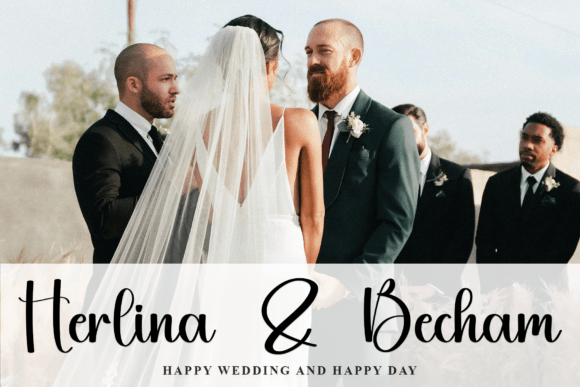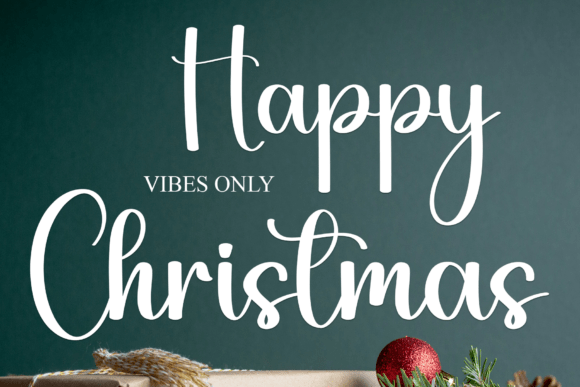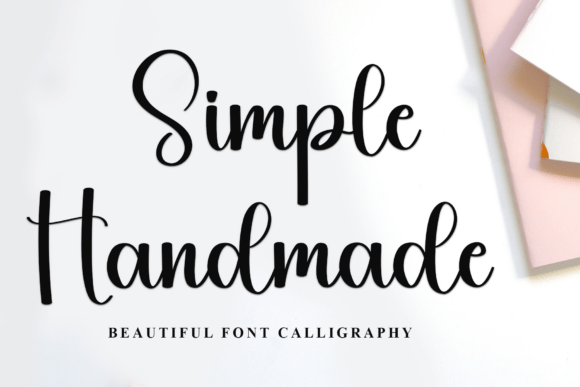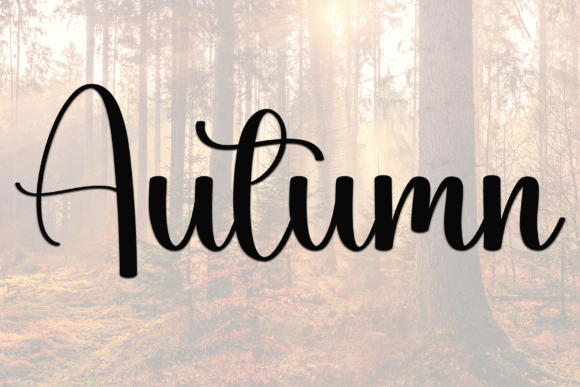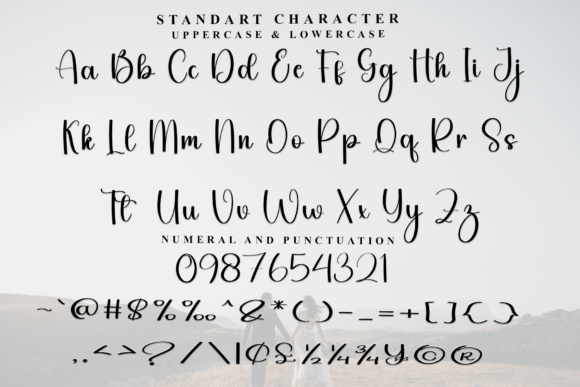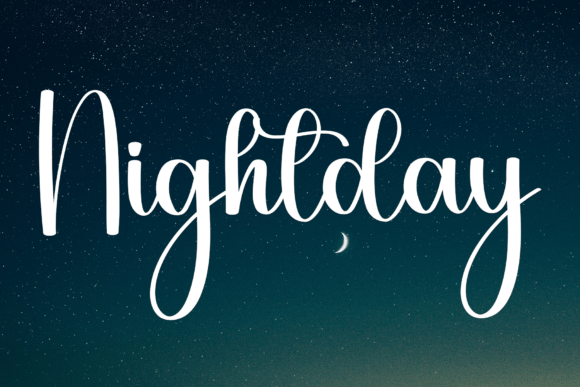
Introducing Blanket Font: The Soft, Unique Touch for Your Creative Projects
In the world of typography, a font can make or break a design. It’s the perfect blend of style, elegance, and personality that can elevate your creative projects to the next level. If you’re a designer, crafter, or artist looking for a font that stands out from the crowd, look no further than Blanket Font. This beautiful and eye-catching font is designed with a soft, unique touch that will add a special character to your work.
The Distinctive Strokes of Blanket Font
Blanket Font boasts distinctive strokes that give it a special character, making it meaningful and versatile for future use. The font’s unique design ensures that it will add a touch of personality to any project, whether it’s a design project, craft, or other creative work. The soft and rounded edges of the font give it a friendly and approachable feel, making it perfect for a wide range of applications.
A World of Characters at Your Fingertips
One of the standout features of Blanket Font is its vast array of characters. With a wide range of letters, numbers, and symbols, you’ll have everything you need to create stunning designs and crafts. Whether you’re working on a logo, brochure, or social media graphic, Blanket Font has got you covered. The font’s versatility ensures that it will be a valuable addition to your design toolkit.
Blanket Font is perfect for design projects, crafts, and other creative works. Its unique and eye-catching design makes it ideal for a wide range of applications, from branding and advertising to scrapbooking and DIY crafts. The font’s soft and rounded edges give it a friendly and approachable feel, making it perfect for projects that require a personal touch.
Ideal for a Wide Range of Products
Blanket Font is ideal for a wide range of products, from business cards and brochures to t-shirts and mugs. The font’s unique design ensures that it will add a touch of personality to any product, making it perfect for businesses and individuals looking to stand out from the crowd. Whether you’re creating a logo, packaging, or promotional materials, Blanket Font is the perfect choice.
Enhance Your Designs with Blanket Font
Blanket Font is designed to enhance your designs, making them appealing to many audiences across different artistic and creative fields. The font’s soft and unique touch ensures that it will add a special character to your work, making it perfect for designers, crafters, and artists looking to create stunning designs and crafts. With Blanket Font, you can:
- Create stunning logos and branding materials that stand out from the crowd
- Design eye-catching brochures and flyers that grab attention
- Make personalized crafts and DIY projects that showcase your personality
- Develop unique and creative social media graphics that engage your audience
In conclusion, Blanket Font is a beautiful and eye-catching font designed with a soft, unique touch. Its distinctive strokes give it a special character, making it meaningful and versatile for future use. With various characters, it’s perfect for design projects, crafts, and other creative works. Compatible with various applications, including Windows and open-source platforms, this natural font style is ideal for a wide range of products. Whether you’re a designer, crafter, or artist, Blanket Font is the perfect addition to your design toolkit.